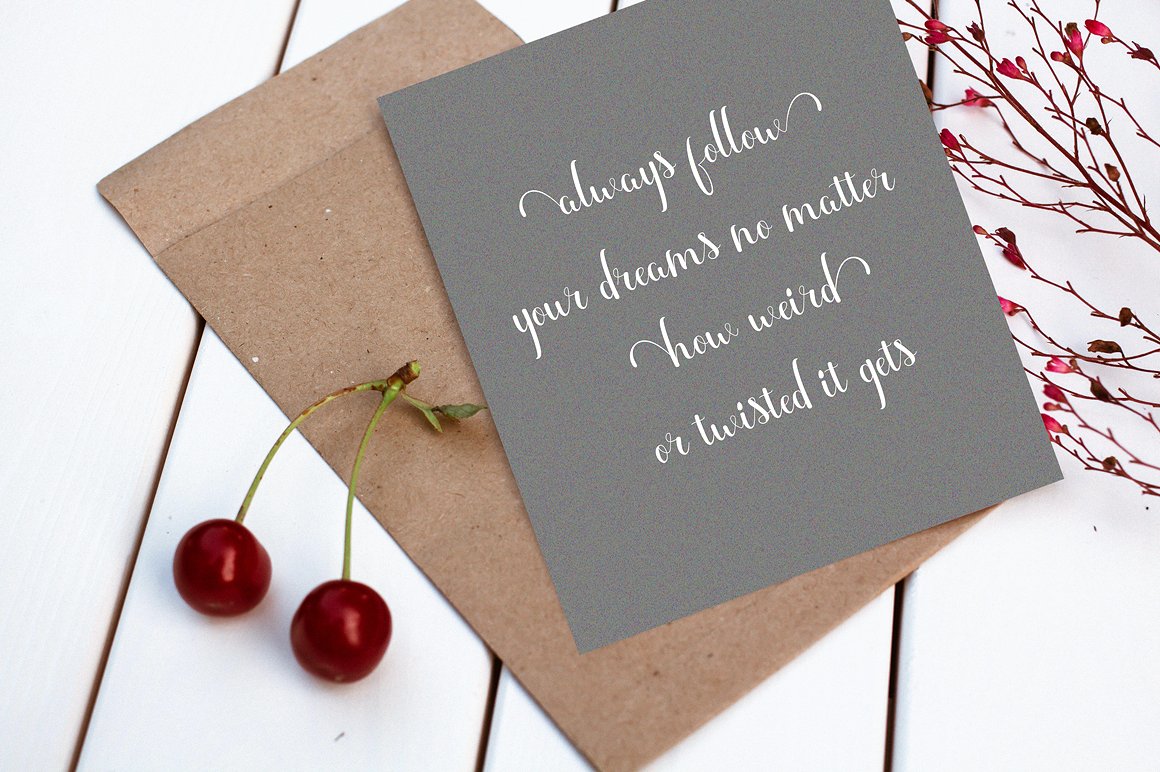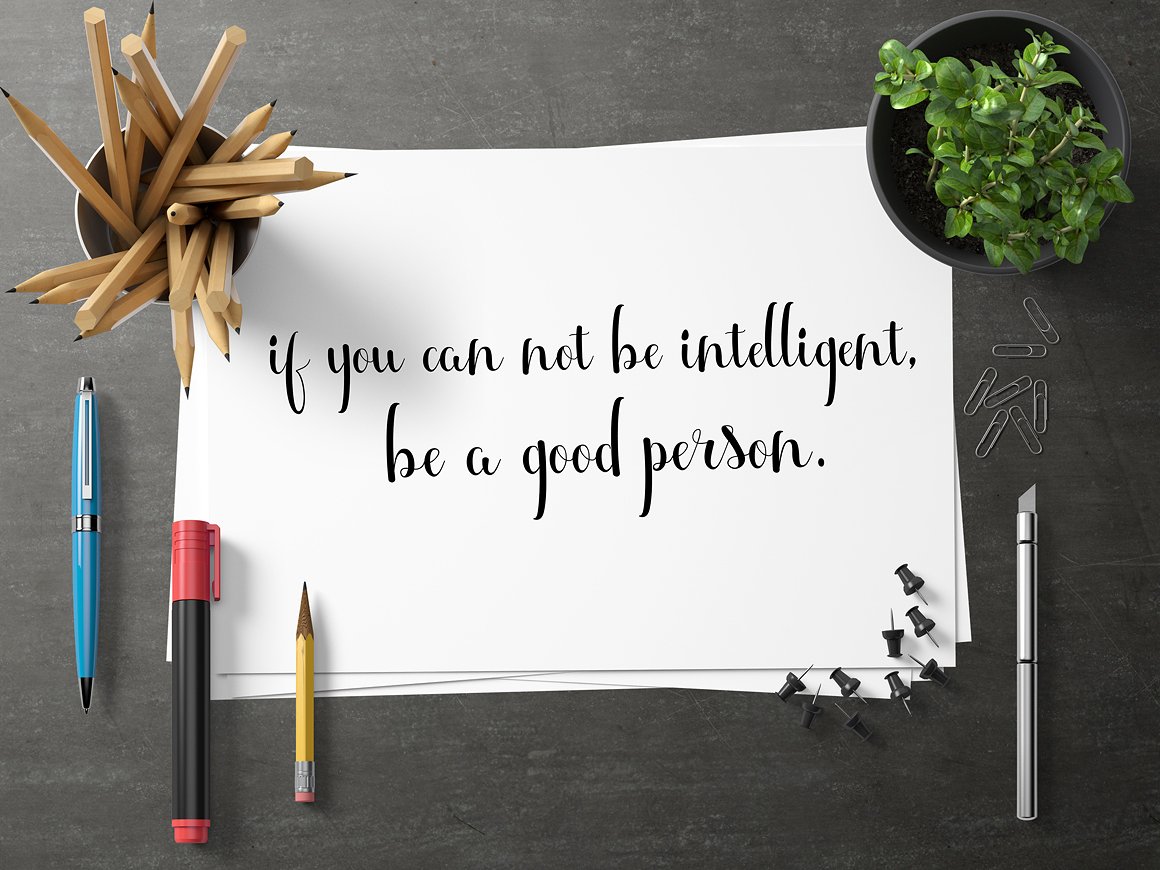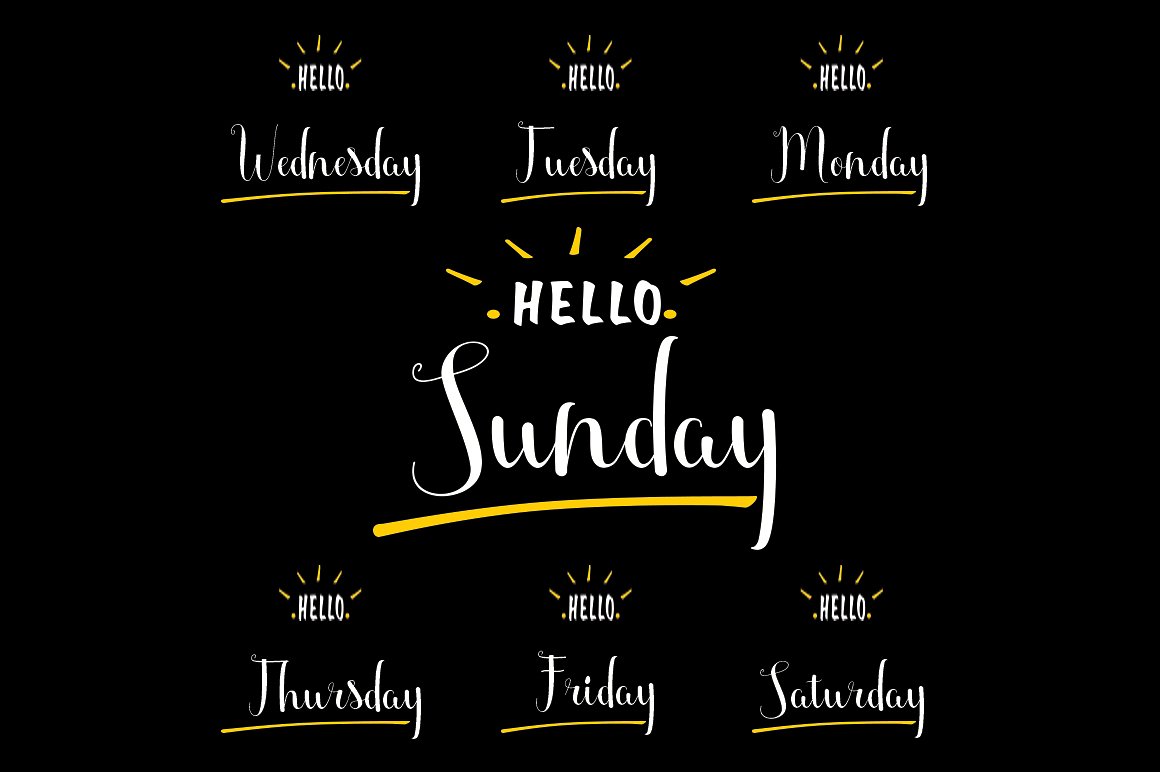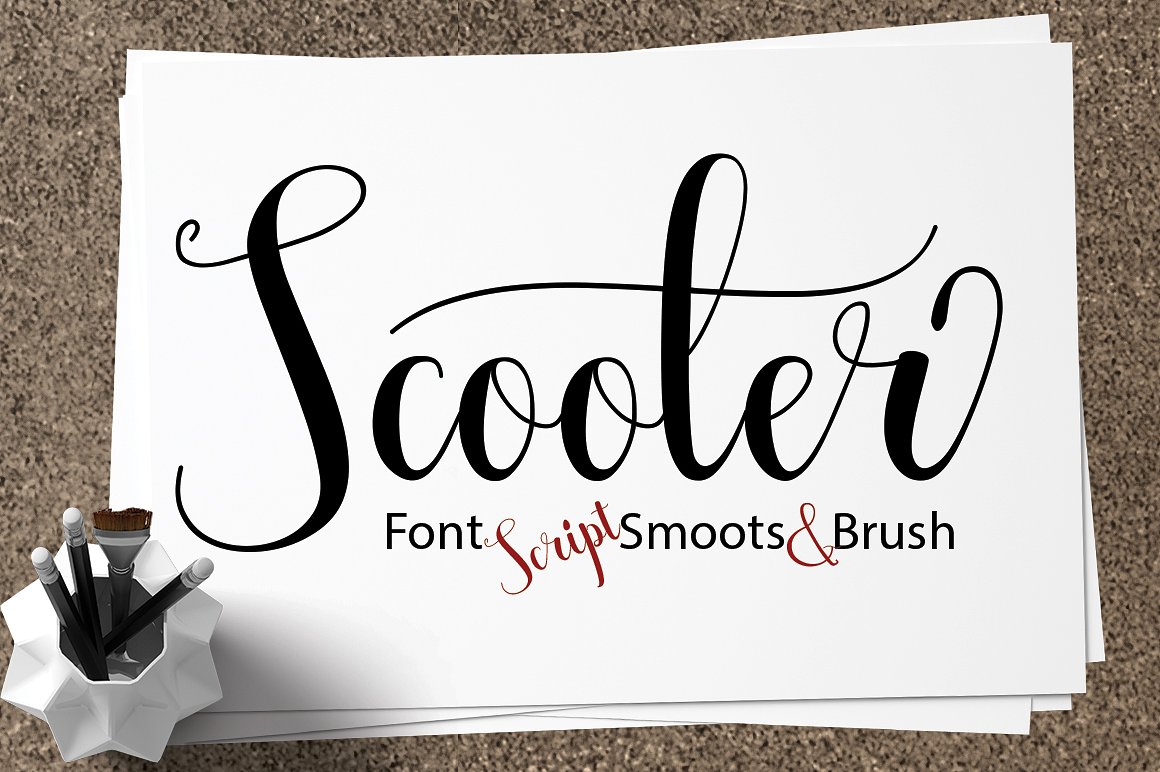
Scooter Script Font
A modern handscript typeface. Introducing Scooter Font. Scooter Modern Calligraphy. This font was designed by handwriting, and it has a modern and unique forms of calligraphy, the writing style is very natural.Can be used for various purposes.such as headings, logos, wedding invitation, t-shirt, letterhead, signage, lable, news, posters, badges etc.